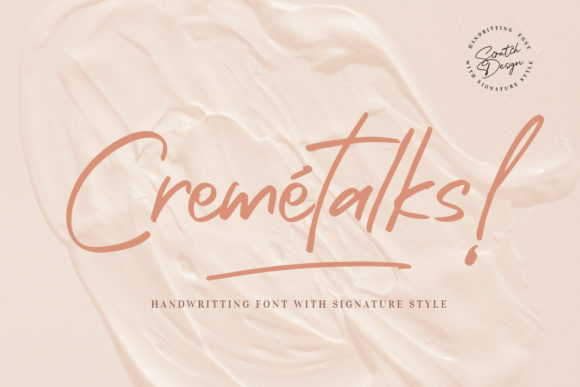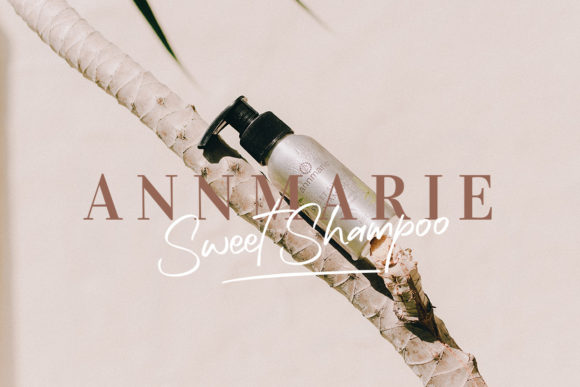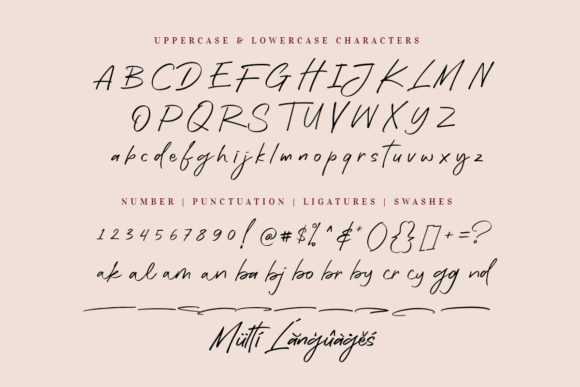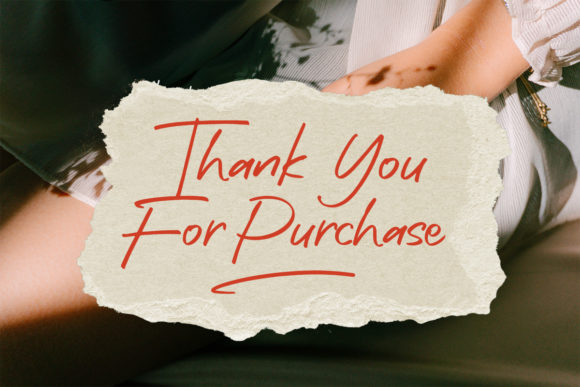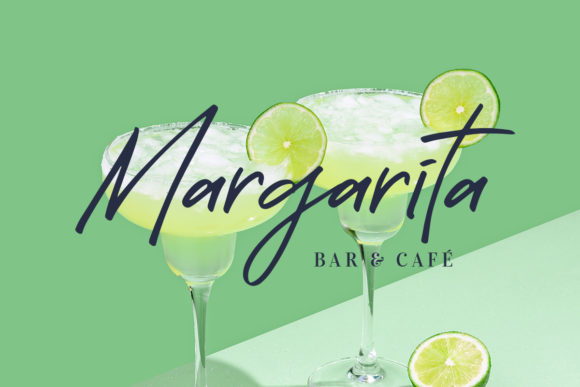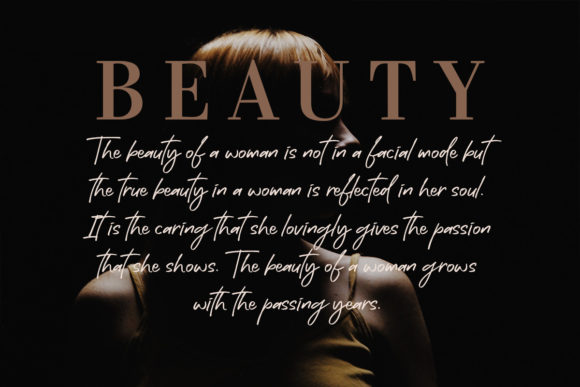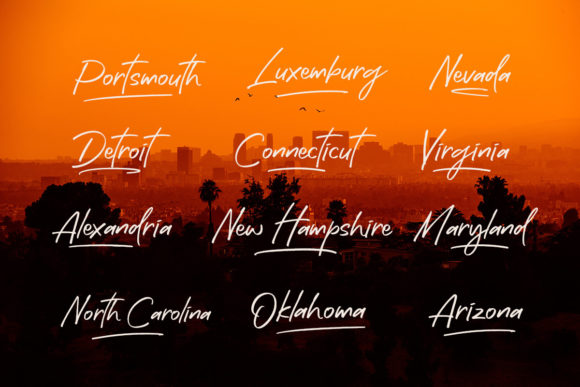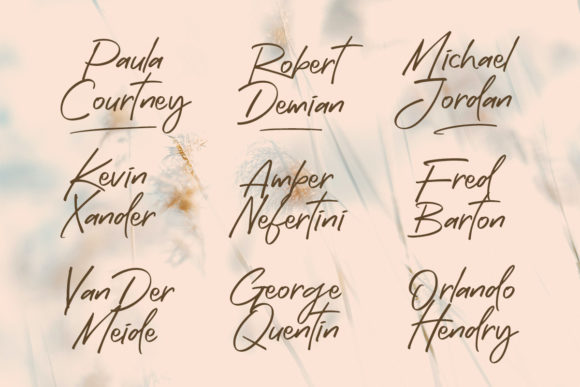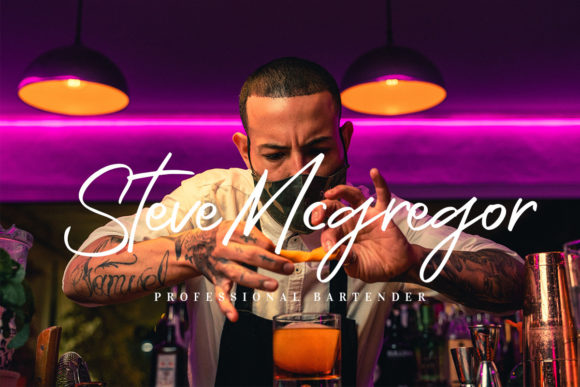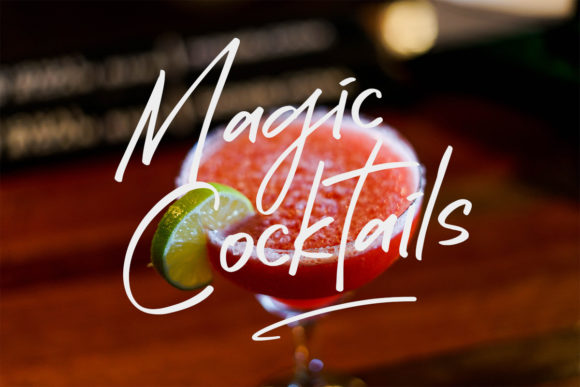
Cremétalks Font
About Cremétalks Font
Cremétalks is a fashionable and graceful script font. Fall for its delicate style and use it to create gorgeous designs. It has a clean, thin and smooth vibe and it will be a hit for any design that you want to add it to.